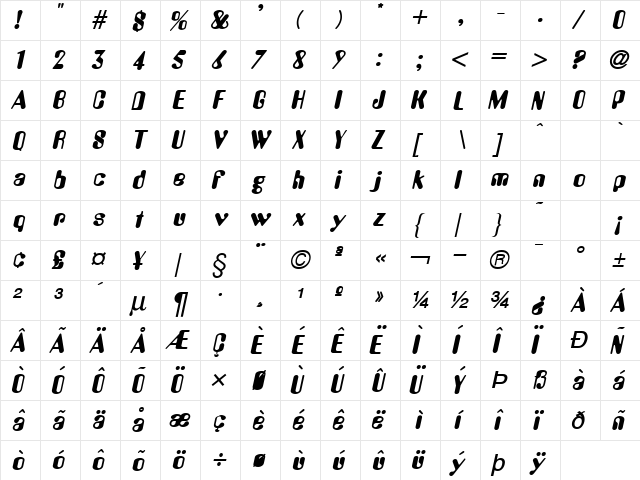
Amos BoldItalic
Design Context for Amos Typeface
Amos takes a measured approach to typography — its balanced proportions and neutral character make it a reliable workhorse for both digital and print work. The dynamic lean of this cut emphasises speed and emphasis in any layout. Its bold stroke weight gives it real presence on the page.
Pro Tip: Use Amos for emphasis, pull quotes, and subheadings where its slanted energy can add rhythm to the layout.